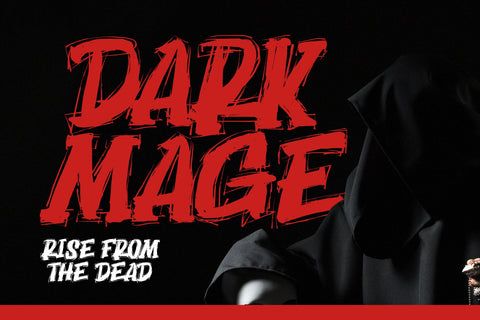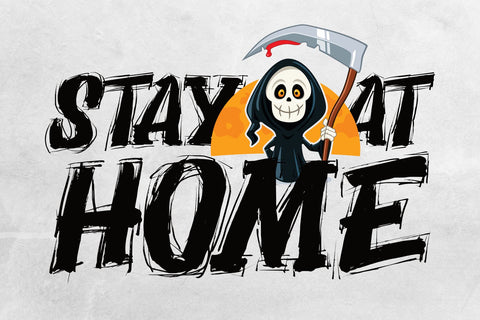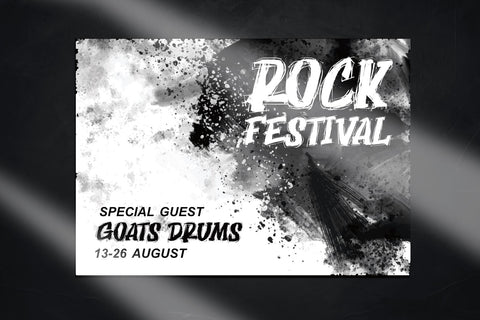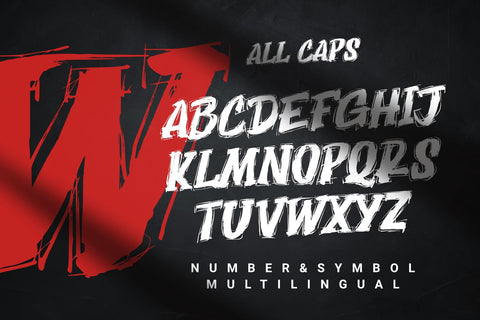
Dark Mage - Scary typeface
Dark Mage is the original doodle type with ALLCAPS already set up for a spooky design.
Dark Mage is perfect for poster design, horror movie title design, t-shirt design, spooky poster design, Instagram design, content design, music poster design, and other designs.